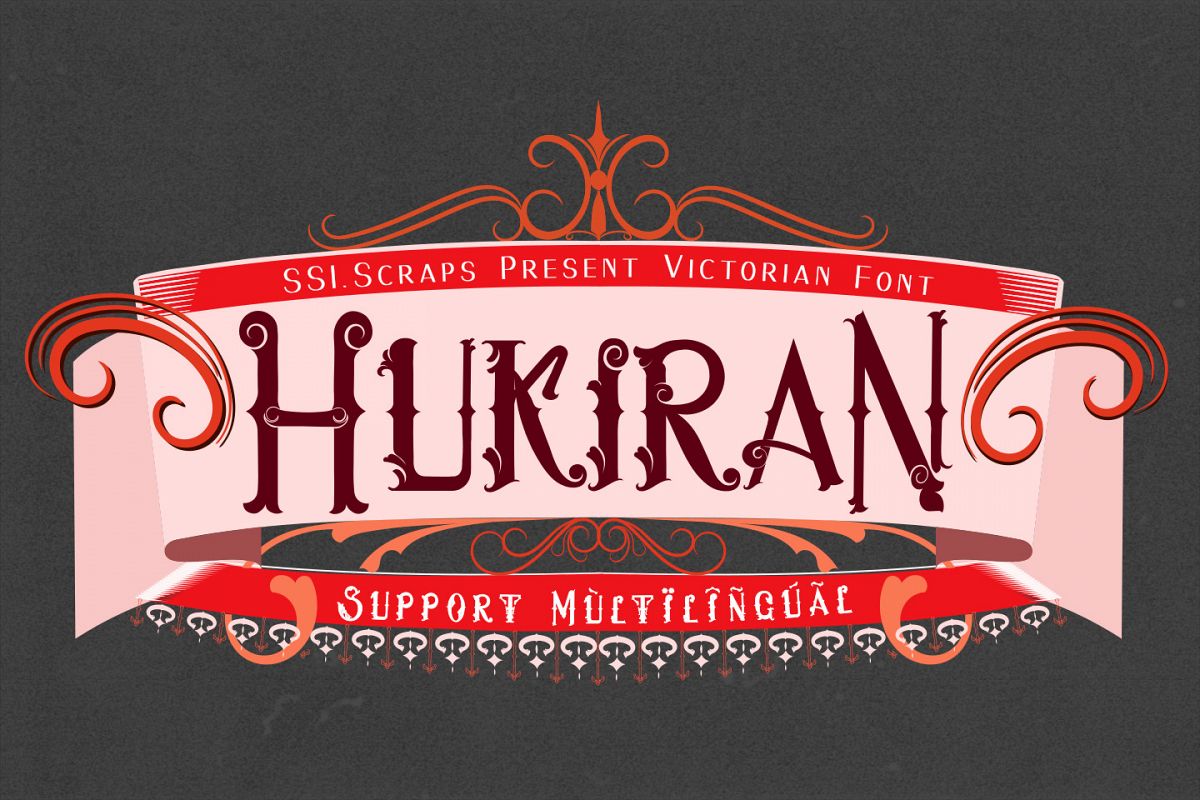
Hukiran Victorian Font
Hukiran-Regular
Hukiran is an elegant Victorian font with an incredible charm. It will turn any design creation into a stunner! it supports multilingual and complete punctuation. it also has an editable label template as a bonus.